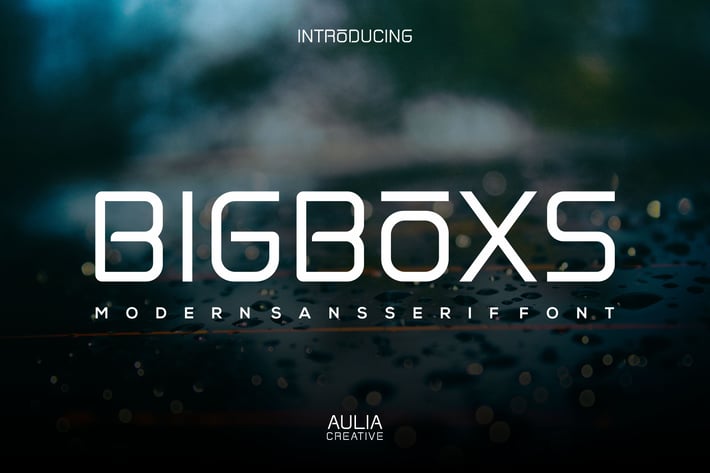
Bigboxs Font Modern Minimalist
Introducing our new product Bigboxs Font Modern Minimalist
Bigboxs Font Modern Minimalist is and elegant and authentic display font.